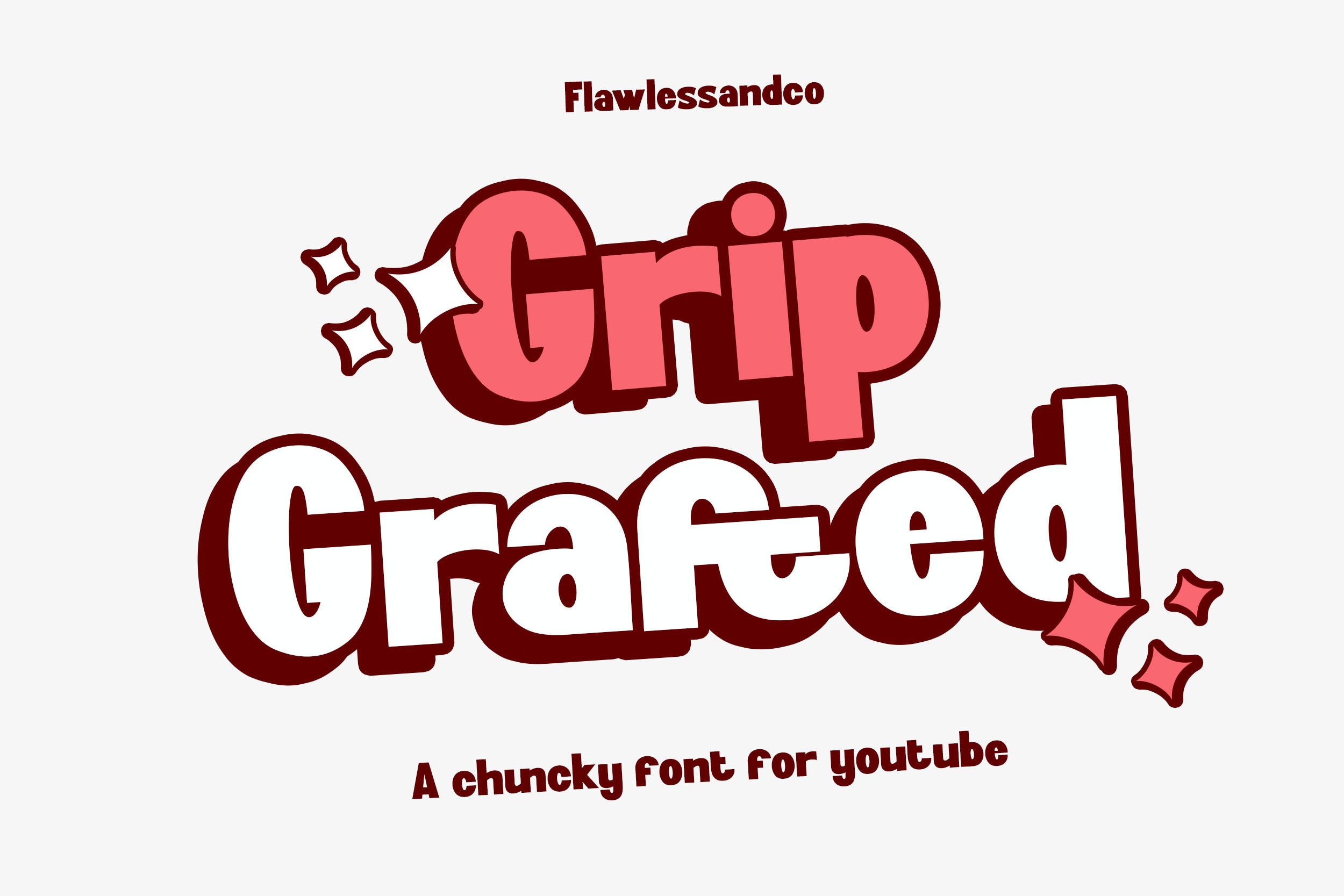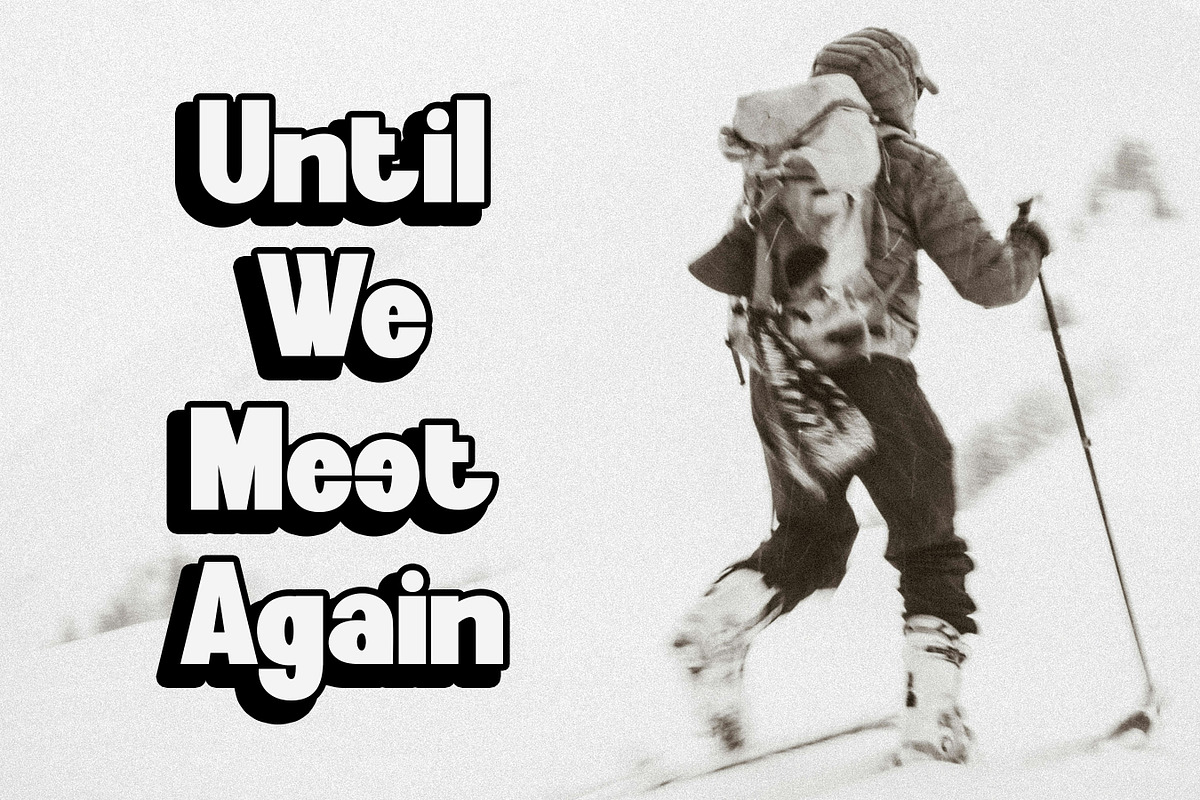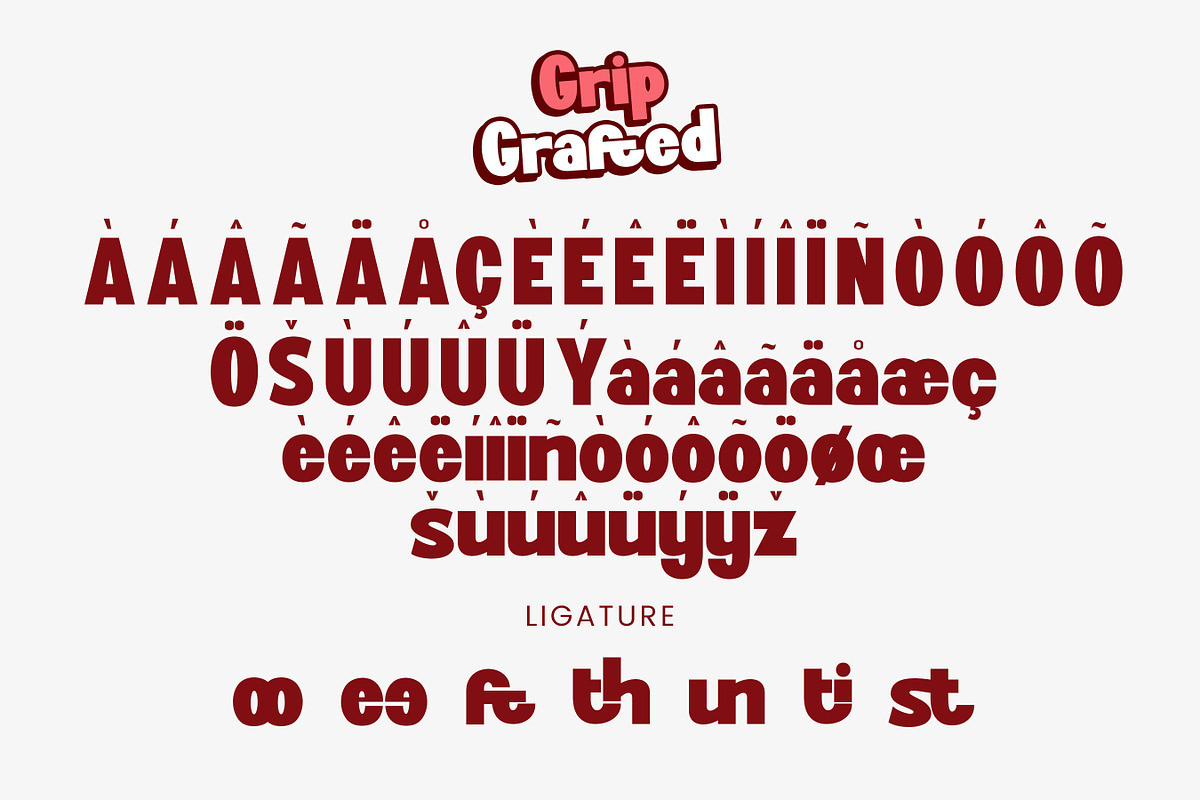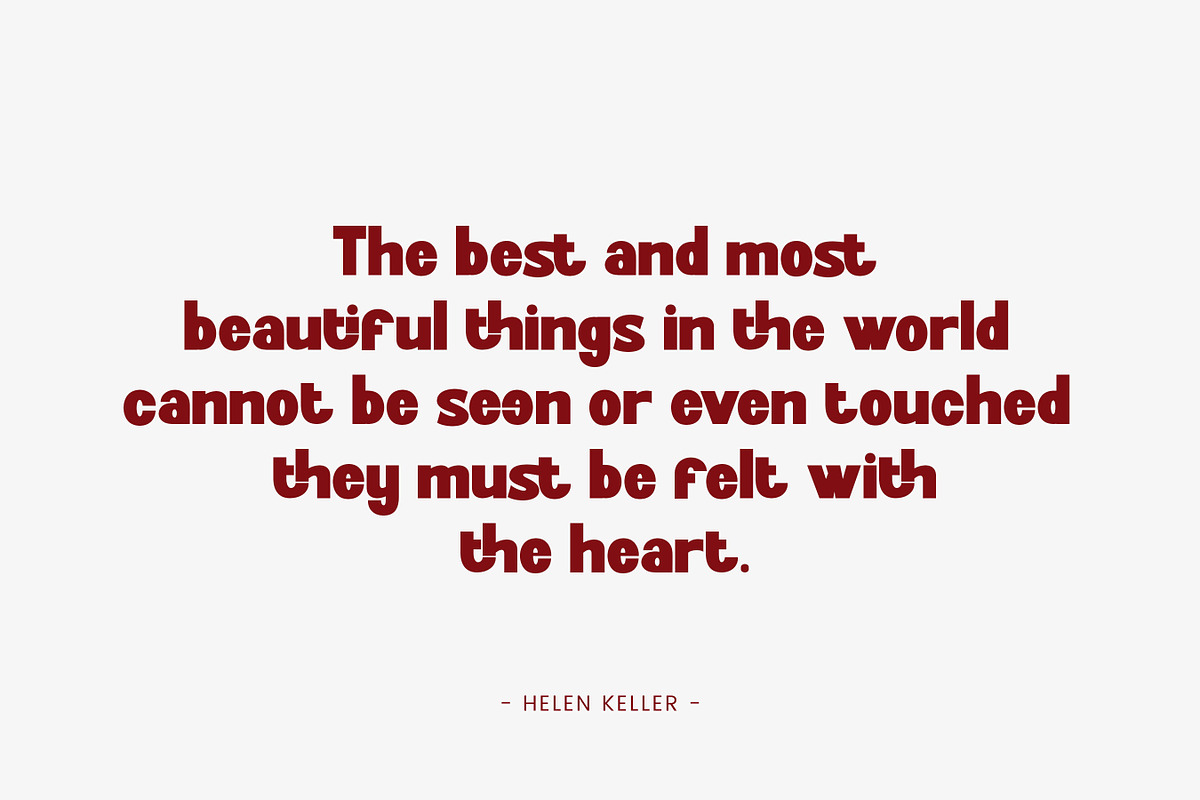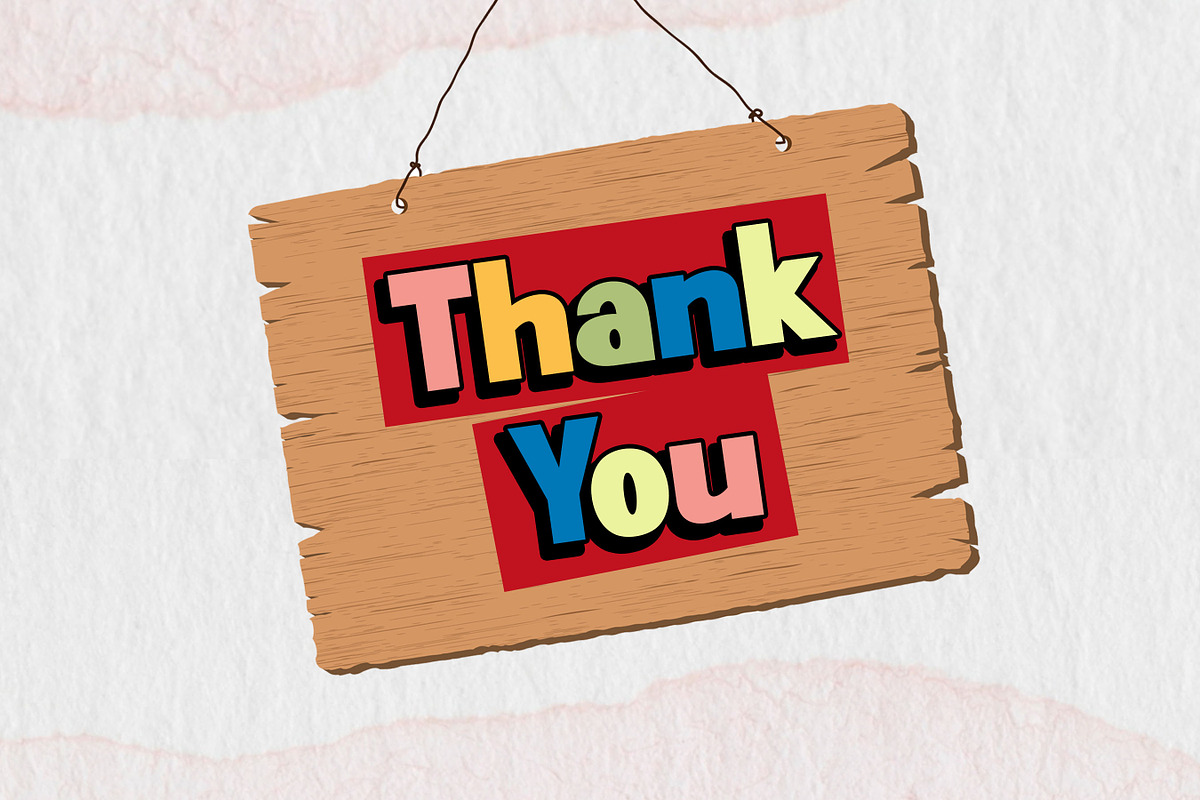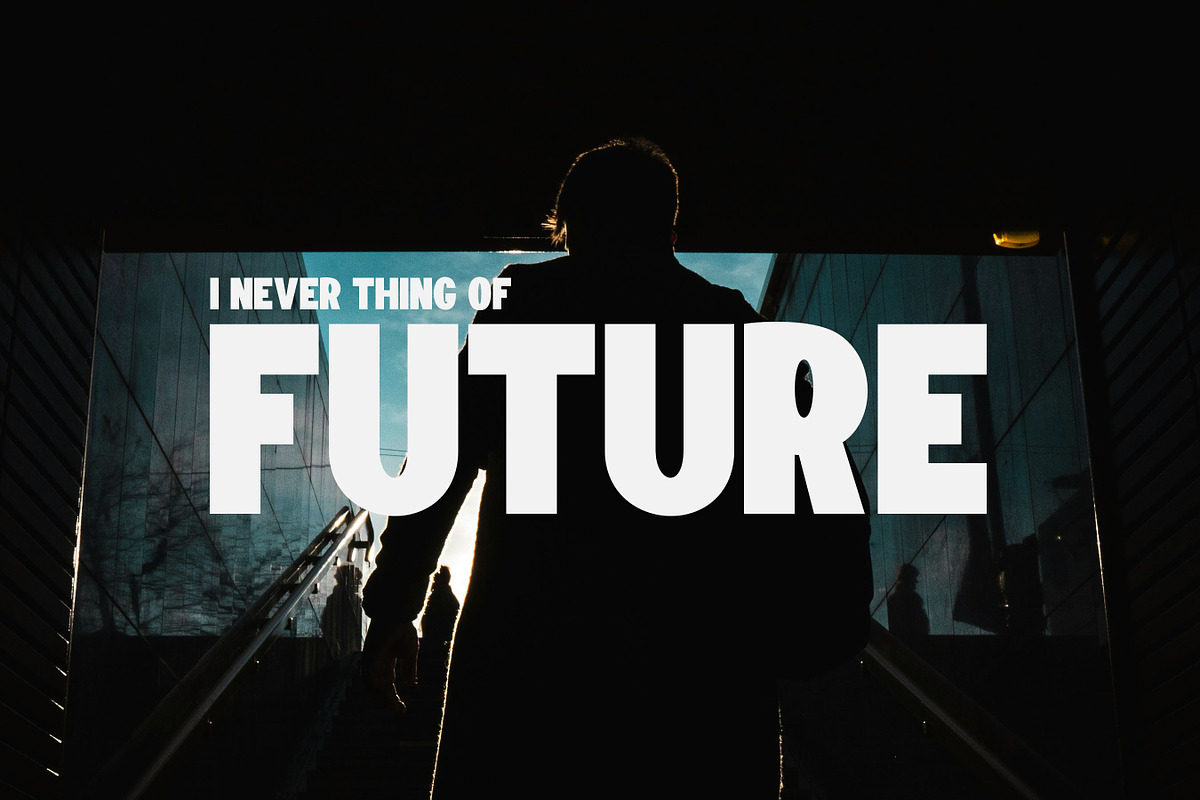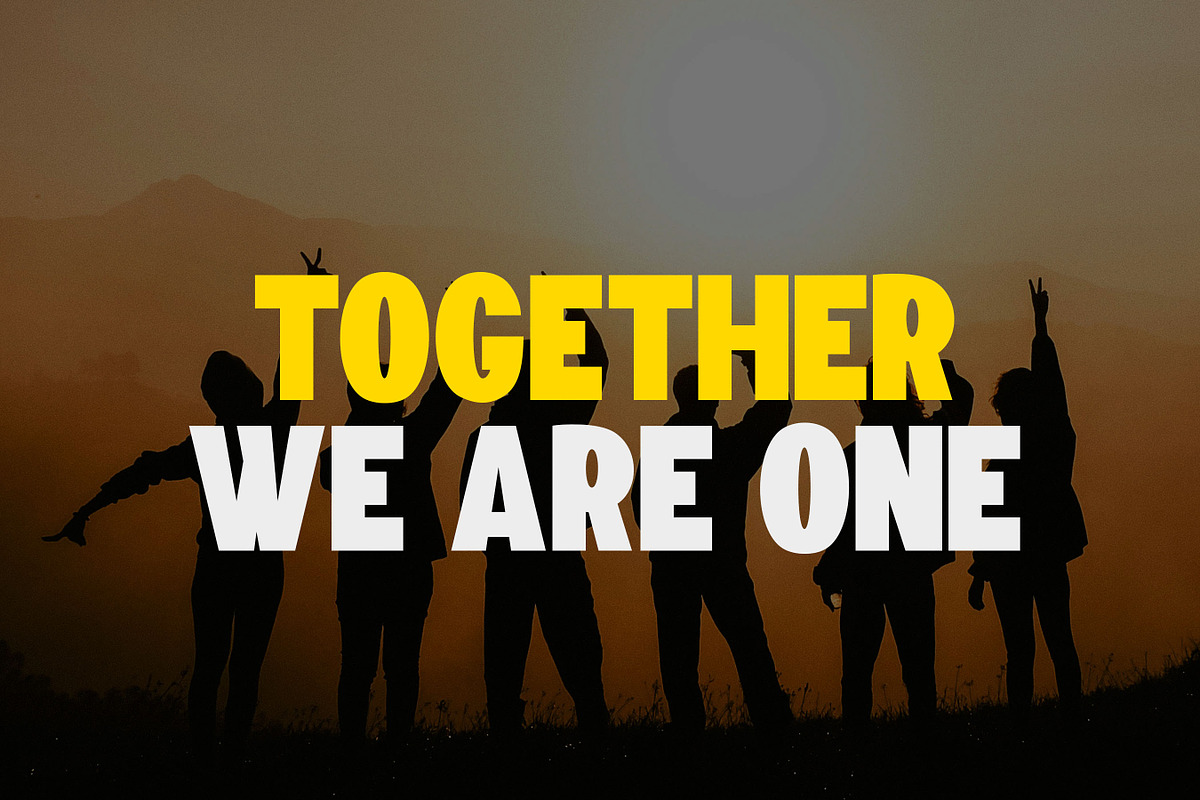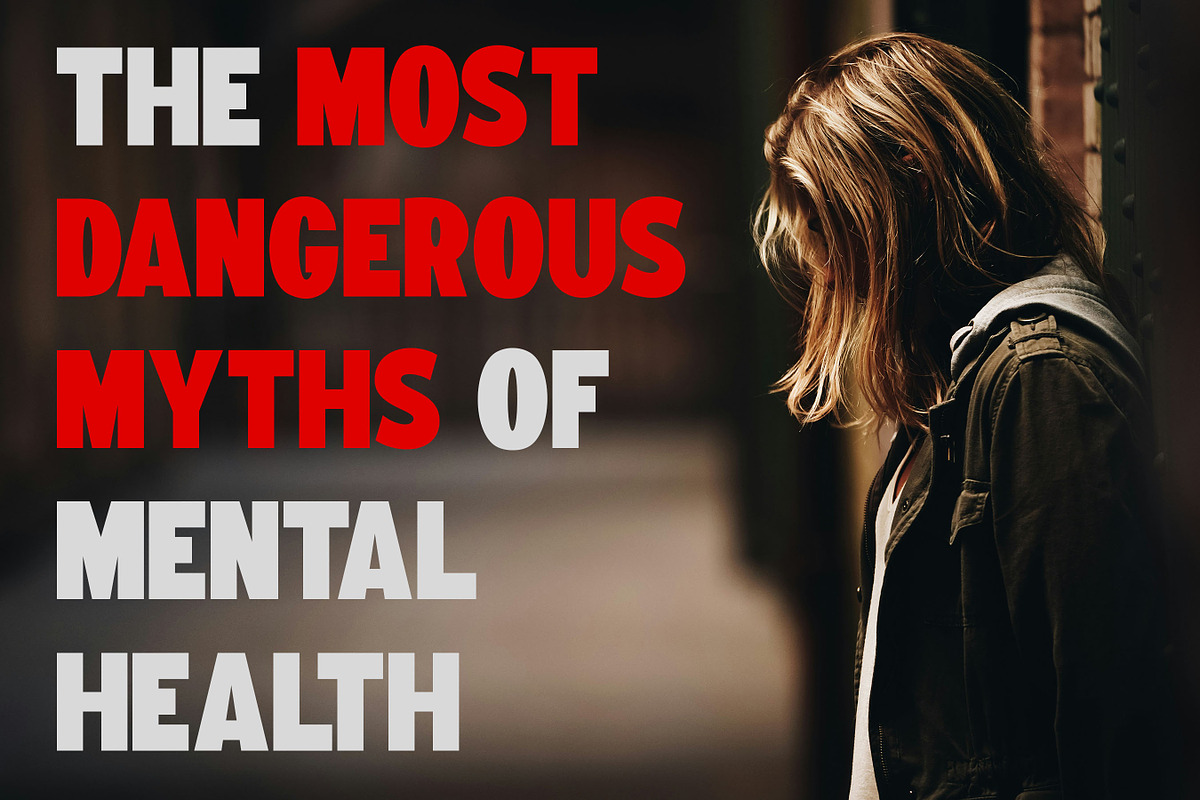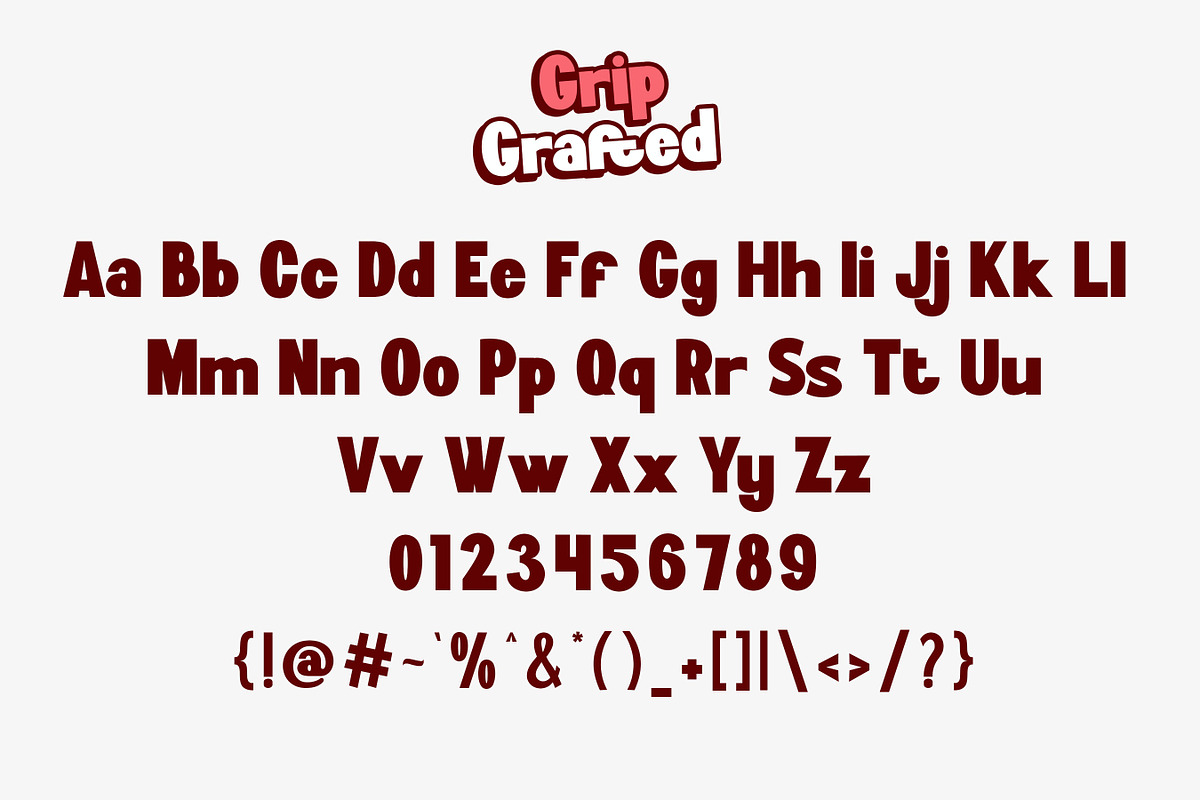
Grip Grafted - Thumbnails Font
Introducing "Grip Grafted", is a chunky font for YouTube. Make a statement with "Grip Grafted," a bold and chunky font designed to command attention on YouTube. With its strong presence and distinctive style, Grip Grafted ensures that your video titles and thumbnails stand out in the crowded digital landscape, enticing viewers to click and engage.
Multilingual Uppercase alphabet A-Z Lowercase alphabet a-z Numbers 0-9 Some punctuation